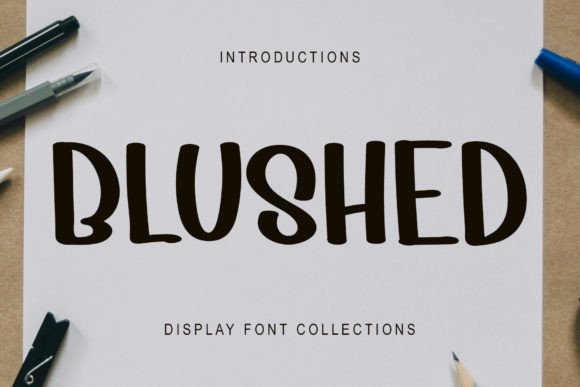
The Blushed Font: A Fun and Quirky Display Font for Cheerful Designs
Have you ever been working on a design project, and suddenly, you’re stuck on finding the perfect font? I recall a recent experience where I was tasked with creating a children’s themed design, and I just couldn’t find a font that captured the playful and cheerful vibe I was going for. That’s when I stumbled upon the Blushed font, and it completely transformed my design!
A Personal Review of Blushed Font
I’m excited to share my honest review of the Blushed font with you. Here’s what I love about it:
- ✨ Fun and quirky design: The Blushed font is perfect for creating cheerful and playful designs that appeal to children and adults alike.
- ✅ PUA encoded: This means that you can easily access all the amazing glyphs and ligatures, making it a breeze to create unique and creative designs.
- 🎨 Versatile: The font is suitable for a wide range of design projects, from children’s themed designs to posters, flyers, and social media graphics.
While I absolutely love the Blushed font, there are a few small quirks to be aware of:
- 🤔 Limited use cases for formal designs: Due to its playful nature, the Blushed font may not be the best choice for formal or professional designs.
- ⚠️ Some glyphs may require manual adjustment: While the font is PUA encoded, some glyphs may require manual adjustment to get the desired look.
The Designer Inspiration Behind Blushed Font
The Blushed font was designed with the intention of creating a fun and playful display font that’s perfect for cheerful designs. The designer wanted to create a font that’s both quirky and elegant, making it suitable for a wide range of design projects. While I couldn’t find any information on the designer’s personal story, it’s clear that they were inspired by the world of children’s design and the importance of playfulness in creative projects.
| What is the Blushed font best used for? | The Blushed font is perfect for children’s themed designs, social media graphics, posters, and flyers. |
| Is the Blushed font PUA encoded? | Yes, the Blushed font is PUA encoded, making it easy to access all the glyphs and ligatures. |
| Is the Blushed font available in different weights or styles? | Currently, the Blushed font is available in a single weight, but the designer may release additional weights or styles in the future. |